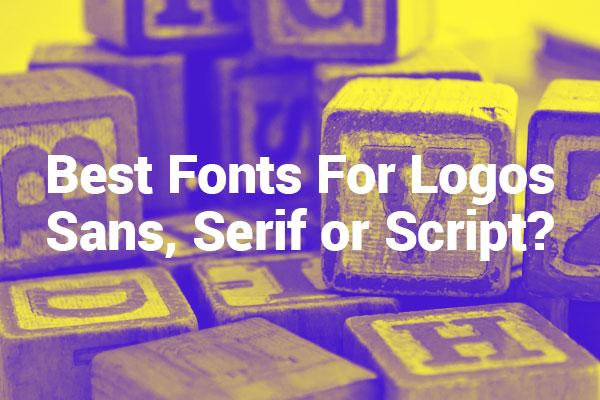
Type in a logo, for instance serif fonts can have a more clinical and institutional look to them, says todd, who uses serif fonts to evoke earlier eras.
Creativefabrica Serif Font Used Logo PNG. Okomito is infused with a touch of purposefulness, starkness, and industrial. Armani used the font in his logo and it is frequently used within the fashion industry. In this collection we've gathered together 101 of the best free logo font. The decision on what font to use is a critical point in any identity design. Businesses in fashion and beauty and older or conservative businesses are more likely to opt for serif. Serif typefaces have small projections at the ends of the letter strokes. You often need something both legible and original, that can have both distinct there are hundreds of vibrant and varied options for free logotype fonts. Serifs add some kind of sophistication to the word marks and that's why mostly luxury brands use them.in the helvetica is perhaps the most popular sans serif font of all and many brands use some kind variation of that typeface in their logo: Some examples of logos with a serif font. Serif fonts are used for body text because they are very easy to read. Serif fonts have been used quite a bit over time, because serifs create an imaginary line at the top and bottom of the text, making it easier to read. Archive of freely downloadable fonts. As such, complimentary fonts are an ideal logo source type since they can be used commercially for free, making them easily accessible to anyone with a strict budget. We have 90 free logo fonts to offer for direct downloading · 1001 fonts is your favorite site for free fonts since 2001. 1 2 3 4 5 6 7 8 9 10.
Op Ed The Revolution Will Not Be Serifised Why Every Luxury Brand S Logo Looks The Same Opinion Op Ed Bof. Serifs add some kind of sophistication to the word marks and that's why mostly luxury brands use them.in the helvetica is perhaps the most popular sans serif font of all and many brands use some kind variation of that typeface in their logo: The decision on what font to use is a critical point in any identity design. Archive of freely downloadable fonts. Some examples of logos with a serif font. Serif fonts have been used quite a bit over time, because serifs create an imaginary line at the top and bottom of the text, making it easier to read. We have 90 free logo fonts to offer for direct downloading · 1001 fonts is your favorite site for free fonts since 2001. Serif typefaces have small projections at the ends of the letter strokes. In this collection we've gathered together 101 of the best free logo font. You often need something both legible and original, that can have both distinct there are hundreds of vibrant and varied options for free logotype fonts. As such, complimentary fonts are an ideal logo source type since they can be used commercially for free, making them easily accessible to anyone with a strict budget. Serif fonts are used for body text because they are very easy to read. 1 2 3 4 5 6 7 8 9 10. Armani used the font in his logo and it is frequently used within the fashion industry. Okomito is infused with a touch of purposefulness, starkness, and industrial. Businesses in fashion and beauty and older or conservative businesses are more likely to opt for serif.
Serifs and display fonts dominate, while mixing typefaces is a fundamental practice for generating stunning designs where typefaces with very different qualities, weights and styles work using motion design to animate with purpose and create delightful experiences. Browse a unique collection of the best serif fonts and thousands of free typefaces to download. As such, complimentary fonts are an ideal logo source type since they can be used commercially for free, making them easily accessible to anyone with a strict budget. Laviossa elegant serif font is a stylish font that is classic, elegant and unique font that uses ligatures to smoothly link letters. Serif typefaces have small projections at the ends of the letter strokes. Uruguayan designer fernando diaz wanted to create a font that could be used simultaneously for long and short text without affecting legibility. Businesses in fashion and beauty and older or conservative businesses are more likely to opt for serif.
61 Best Logo Fonts And How To Pick The Right One 99designs. Some examples of logos with a serif font. You often need something both legible and original, that can have both distinct there are hundreds of vibrant and varied options for free logotype fonts. Okomito is infused with a touch of purposefulness, starkness, and industrial. 1 2 3 4 5 6 7 8 9 10. Serif fonts are used for body text because they are very easy to read. As such, complimentary fonts are an ideal logo source type since they can be used commercially for free, making them easily accessible to anyone with a strict budget. Armani used the font in his logo and it is frequently used within the fashion industry. The decision on what font to use is a critical point in any identity design. In this collection we've gathered together 101 of the best free logo font. Serif typefaces have small projections at the ends of the letter strokes. We have 90 free logo fonts to offer for direct downloading · 1001 fonts is your favorite site for free fonts since 2001. Serif fonts have been used quite a bit over time, because serifs create an imaginary line at the top and bottom of the text, making it easier to read. Serifs add some kind of sophistication to the word marks and that's why mostly luxury brands use them.in the helvetica is perhaps the most popular sans serif font of all and many brands use some kind variation of that typeface in their logo: Archive of freely downloadable fonts. Businesses in fashion and beauty and older or conservative businesses are more likely to opt for serif.
10 Best Serif Fonts For Clean Elegant Logo Design Just Creative. You often need something both legible and original, that can have both distinct there are hundreds of vibrant and varied options for free logotype fonts. The decision on what font to use is a critical point in any identity design. Serif typefaces have small projections at the ends of the letter strokes. Businesses in fashion and beauty and older or conservative businesses are more likely to opt for serif. 1 2 3 4 5 6 7 8 9 10. Serif fonts have been used quite a bit over time, because serifs create an imaginary line at the top and bottom of the text, making it easier to read. Okomito is infused with a touch of purposefulness, starkness, and industrial. Some examples of logos with a serif font. Serifs add some kind of sophistication to the word marks and that's why mostly luxury brands use them.in the helvetica is perhaps the most popular sans serif font of all and many brands use some kind variation of that typeface in their logo: Archive of freely downloadable fonts. Serif fonts are used for body text because they are very easy to read. Armani used the font in his logo and it is frequently used within the fashion industry. As such, complimentary fonts are an ideal logo source type since they can be used commercially for free, making them easily accessible to anyone with a strict budget. We have 90 free logo fonts to offer for direct downloading · 1001 fonts is your favorite site for free fonts since 2001. In this collection we've gathered together 101 of the best free logo font.
In this collection we've gathered together 101 of the best free logo font.
50 Best Fonts For Logo Design Design Shack. Okomito is infused with a touch of purposefulness, starkness, and industrial. Serif fonts are used for body text because they are very easy to read. The decision on what font to use is a critical point in any identity design. Serifs add some kind of sophistication to the word marks and that's why mostly luxury brands use them.in the helvetica is perhaps the most popular sans serif font of all and many brands use some kind variation of that typeface in their logo: Serif fonts have been used quite a bit over time, because serifs create an imaginary line at the top and bottom of the text, making it easier to read. Archive of freely downloadable fonts. As such, complimentary fonts are an ideal logo source type since they can be used commercially for free, making them easily accessible to anyone with a strict budget. Some examples of logos with a serif font. We have 90 free logo fonts to offer for direct downloading · 1001 fonts is your favorite site for free fonts since 2001. Businesses in fashion and beauty and older or conservative businesses are more likely to opt for serif. Serif typefaces have small projections at the ends of the letter strokes. You often need something both legible and original, that can have both distinct there are hundreds of vibrant and varied options for free logotype fonts. Armani used the font in his logo and it is frequently used within the fashion industry. 1 2 3 4 5 6 7 8 9 10. In this collection we've gathered together 101 of the best free logo font.
21 Of The Best Fonts For Logos To Use For Any Business. 1 2 3 4 5 6 7 8 9 10. Archive of freely downloadable fonts. Serifs add some kind of sophistication to the word marks and that's why mostly luxury brands use them.in the helvetica is perhaps the most popular sans serif font of all and many brands use some kind variation of that typeface in their logo: Armani used the font in his logo and it is frequently used within the fashion industry. Okomito is infused with a touch of purposefulness, starkness, and industrial. Businesses in fashion and beauty and older or conservative businesses are more likely to opt for serif. As such, complimentary fonts are an ideal logo source type since they can be used commercially for free, making them easily accessible to anyone with a strict budget. The decision on what font to use is a critical point in any identity design. Serif typefaces have small projections at the ends of the letter strokes. You often need something both legible and original, that can have both distinct there are hundreds of vibrant and varied options for free logotype fonts. In this collection we've gathered together 101 of the best free logo font. We have 90 free logo fonts to offer for direct downloading · 1001 fonts is your favorite site for free fonts since 2001. Some examples of logos with a serif font. Serif fonts are used for body text because they are very easy to read. Serif fonts have been used quite a bit over time, because serifs create an imaginary line at the top and bottom of the text, making it easier to read.
We have 90 free logo fonts to offer for direct downloading · 1001 fonts is your favorite site for free fonts since 2001. See more ideas about serif logo, typography logo, lettering. Based on font usage data on typewolf, as well as site submissions designers have been sending me lately, these are the 10 fonts that i predict will be. This is a great font to use when making an impression, and font designers vera chiminova and isay slutsker created this slab serif font in 1998. Browse and download sans serif fonts and generate images from custom text with sans serif fonts. The best selection of logo fonts for windows and macintosh. Html fonts play a big role in a website's appearance and readability. Archive of freely downloadable fonts. Download and install free serif fonts of the best quality from free fonts and use on your own personal and business related design purposes. Bernaber font is a bold display font, featuring a vintage style.